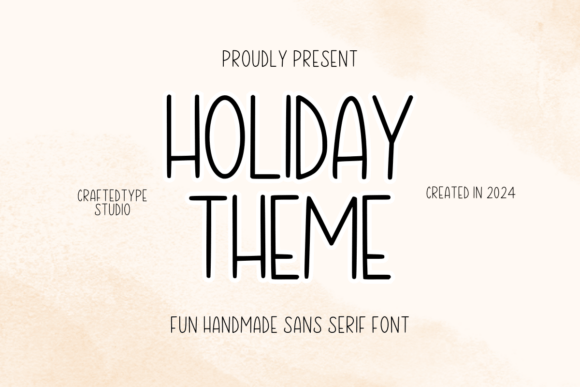
Deck the Halls with the Perfect Font
It’s that time of the year when creativity knows no bounds, and your imagination runs wild. You’re browsing through your favorite design platform, and suddenly, a spark of inspiration hits you. You envision a beautiful holiday card, a festive flyer, or a merry website. But, one crucial element is missing – the perfect font to match the magic of the season.
Enter the Holiday Theme Font, a charming and inviting sans serif font that’s sure to bring joy to your designs. Its natural and unique style makes it the perfect companion for your holiday-themed projects. Whether you’re a seasoned designer or a creative enthusiast, the Holiday Theme Font is a valuable addition to your toolkit, offering endless possibilities to make your designs shine.
Holiday Theme Font Key Features
- Unique Characteristics: The Holiday Theme Font features a unique blend of festive and playful characters, including ornaments, snowflakes, and other holiday-themed elements.
- Character Set: The font includes a comprehensive character set, including Latin, Cyrillic, and Greek alphabets, as well as a range of punctuation and special characters.
Holiday Theme Font Review
Overall, I’d say the Holiday Theme Font is a solid choice for festive designs. It’s a great option for those looking to add a seasonal touch to their projects.
Here are some of the things that work well: ✨
- Festive feel: The font captures the essence of the holiday season, making it perfect for Christmas, New Year’s, or any other winter-themed project.
- Playful vibe: The font’s playful nature adds a lighthearted touch to designs, making it suitable for social media graphics, party invitations, or promotional materials.
- Variety of styles: The font comes in multiple styles, including bold, italic, and outline options, giving designers plenty of flexibility when creating their designs.
- Limited use: While the font is perfect for holiday-themed projects, it may not be as versatile for other types of designs.
- Not suitable for formal designs: The font’s playful nature may not be suitable for formal or professional designs, such as business reports or presentations.
Overall, I’d give the Holiday Theme Font 4 out of 5 stars. It’s a great option for designers looking to add a festive touch to their projects, but it may not be the best choice for more formal or versatile designs.
Tips for Getting the Most Out of Holiday Theme Font
Use Holiday Theme Font to add a festive touch to your designs, especially during holidays like Christmas, Halloween, or Easter.
Experiment with different font sizes, colors, and styles to create a unique look.
Use Holiday Theme Font for:
- Invitations and party decorations
- Gift tags and gift wrap
- Seasonal marketing materials and social media posts